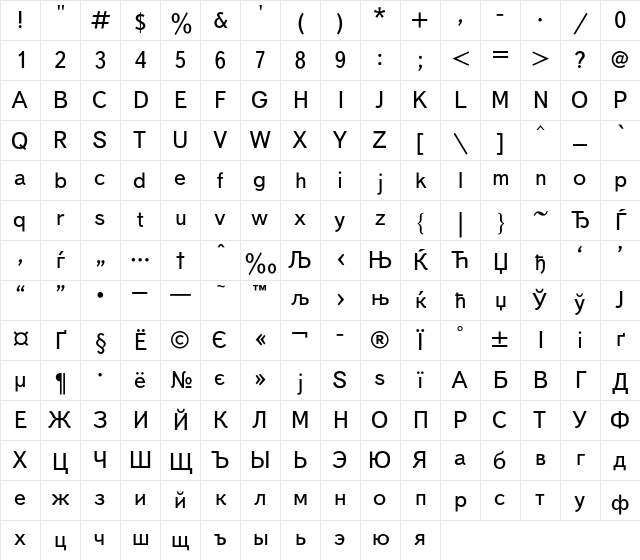
TextBookC Regular
Complete TextBookC Regular glyph index. Displaying only characters natively supported by TextBookC Regular font.
Design Context for TextBookC
TextBookC is a composed and adaptable typeface that performs quietly and consistently across a wide range of design contexts.